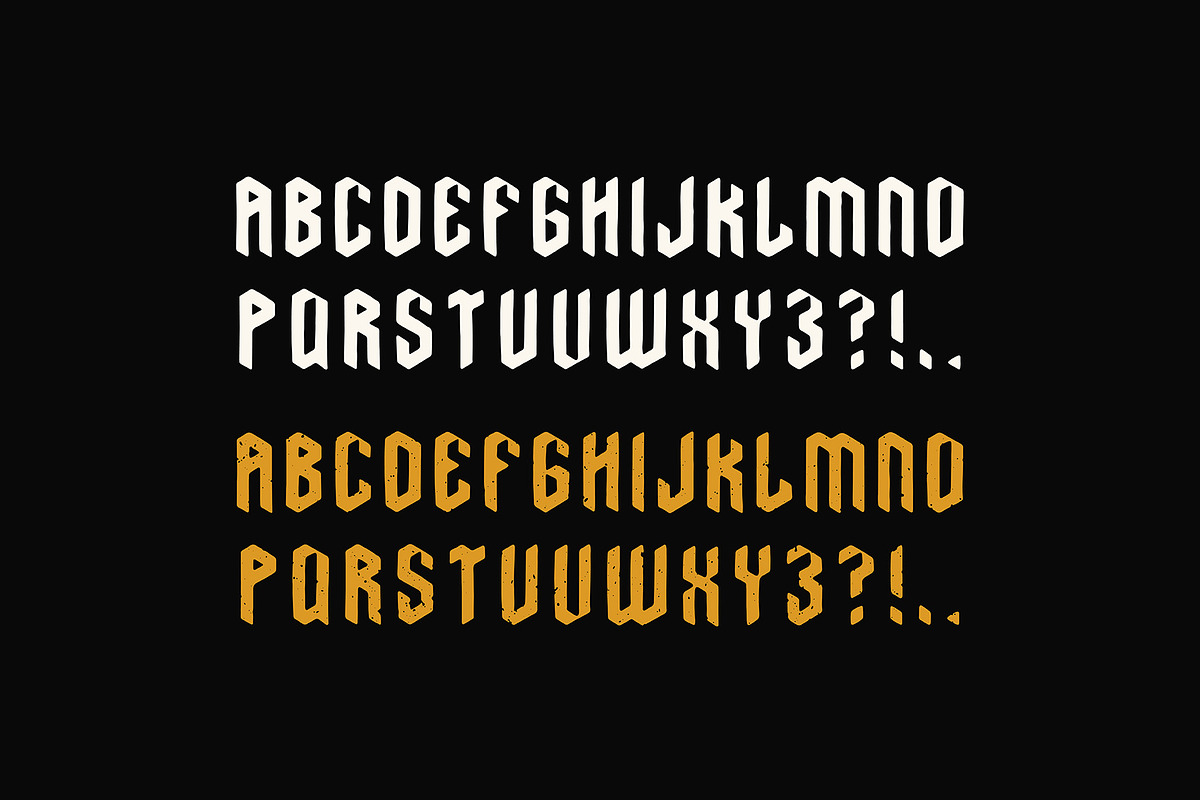
OCDCO Starter Bundle
+++ Introducing the OCDCO Starter Bundle! +++
The OCDCO Starter Bundle contains 4 unique, carefully hand-drawn typefaces. These fonts are inspired by retro/punk/experimental/grunge themes and are perfect for giving your posters and illustrations that hand-drawn type feel. Additionally, the bundle includes alternates, hand crafted icons, a NEU! poster, and a grunge texture to give your work that finishing touch. Enjoy!
Scotland (OTF) Lowercase. Description: an old-school blackletter display font that is perfect for christmas cards and punk rock posters alike.
Soviet League (OTF) Uppercase + icons. Description: a bold, condensed display font that is great for giving your posters and illustrations that hand-drawn type feel.
Narwhal (OTF) Uppercase + alternates and icons. Description: a retro display font - perfect for achieving that retro hand-drawn feel. Great for nautical themes.
Krautrock (OTF) Uppercase - two styles. Description: an isometric blackletter featuring two styles: regular and textured. Perfect for your next show poster.